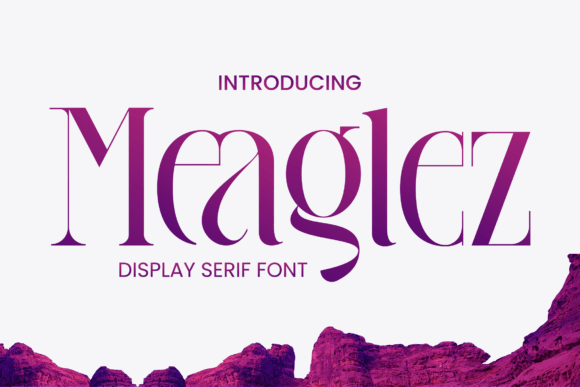
Brace yourself for Meaglez: A Serif Font That Will Transform Your Designs!
In a world of monotonous fonts, Meaglez emerges as a breath of fresh air, a serif font family designed to captivate and inspire. Its elegant and cool demeanor makes it the perfect choice for a wide array of design projects, including logos, branding, invitations, stationery, wedding designs, and even social media posts. With Meaglez, your designs will exude sophistication and timeless charm, leaving a lasting impression on your audience.
Unleash the Power of Serif:
Meaglez Font Family captivates with its serif design, a classic and timeless style that adds a touch of elegance and sophistication to your creations. The soft curves and delicate details of each letterform create a visually appealing aesthetic that draws the eye and invites admiration. Whether you're designing a magazine title, crafting a wedding invitation, or creating a stunning logo, Meaglez will elevate your work to new heights.
A Versatile Font for Endless Possibilities:
Meaglez Font Family is not just a font; it's a versatile design tool that adapts seamlessly to a multitude of design projects. Its extensive character set, including uppercase, lowercase, numerals, and a wide range of punctuation marks, ensures that you have everything you need to create captivating text-based designs. Whether you're working on a digital or print project, Meaglez will effortlessly complement your vision, adding a touch of refinement and elegance to your creations.
The Art of Simplicity:
In an era of visual complexity, Meaglez Font Family offers a refreshing return to simplicity. Its clean lines and uncluttered letterforms create a sense of clarity and readability that makes your text stand out from the noise. Whether you're designing a magazine cover or creating a presentation, Meaglez will ensure that your message is conveyed with clarity and impact.
A Font That Speaks to Your Audience:
Meaglez Font Family is more than just a collection of glyphs; it's a powerful tool that allows you to communicate with your audience on a deeper level. Its elegant and refined design conveys a sense of professionalism and trustworthiness, making it the perfect choice for businesses and organizations looking to make a lasting impression. With Meaglez, your designs will speak volumes, leaving a lasting impact on your audience's minds.